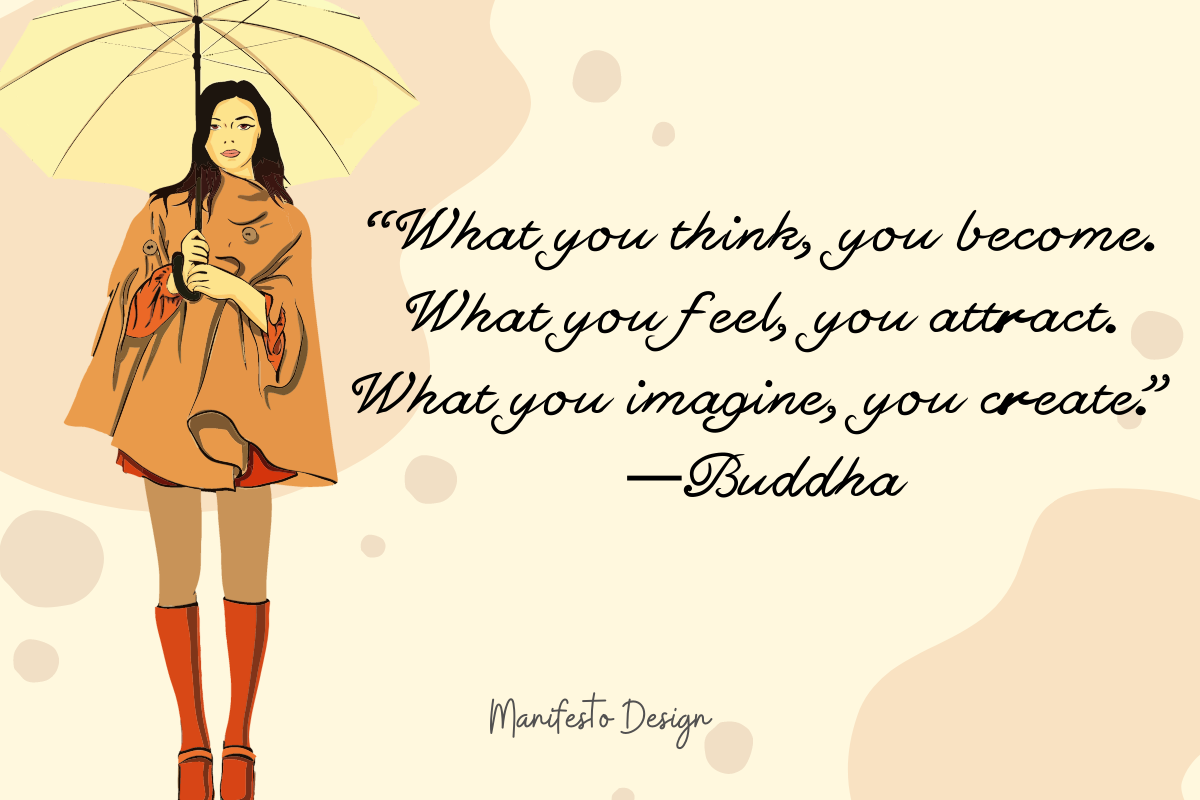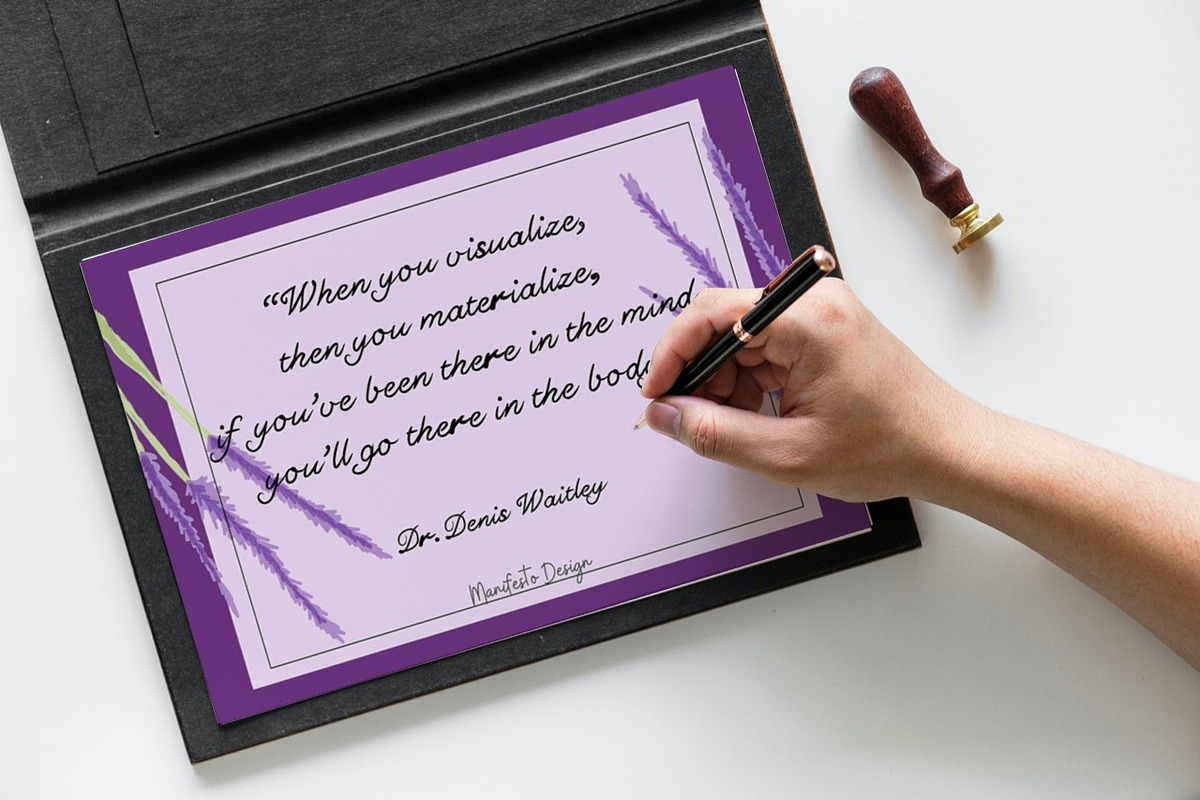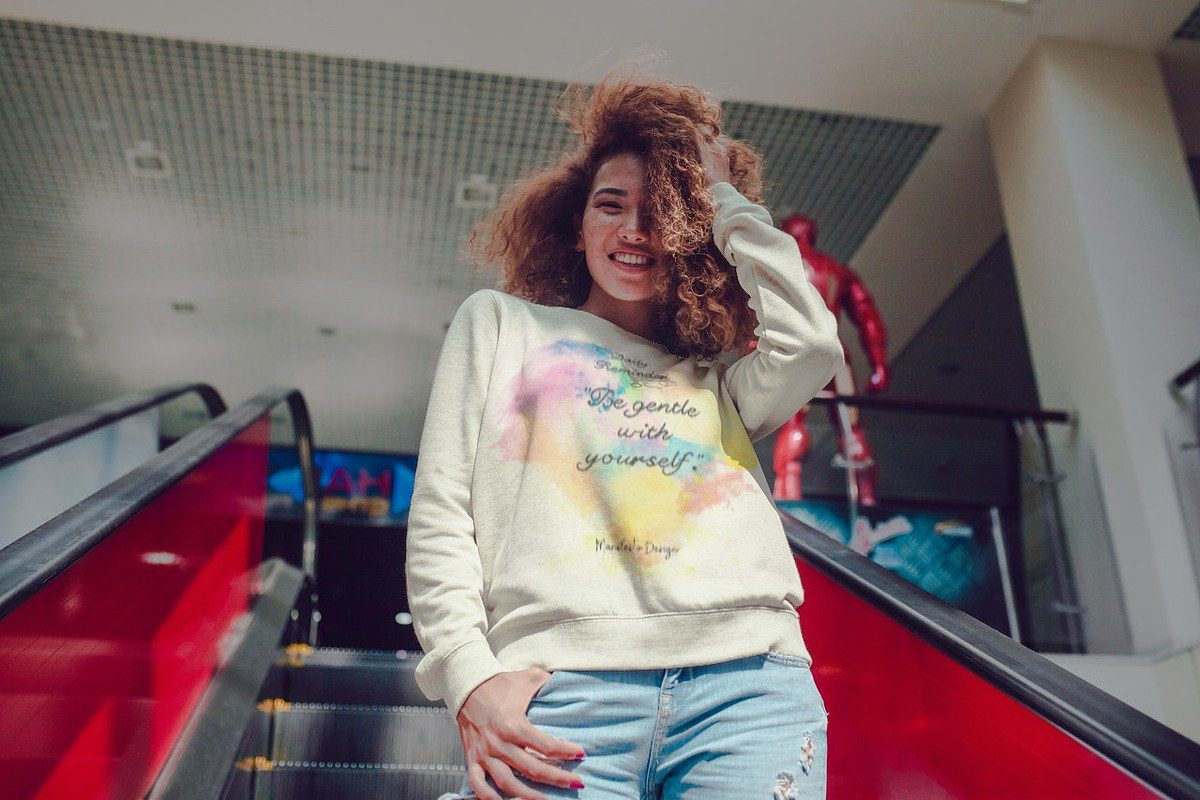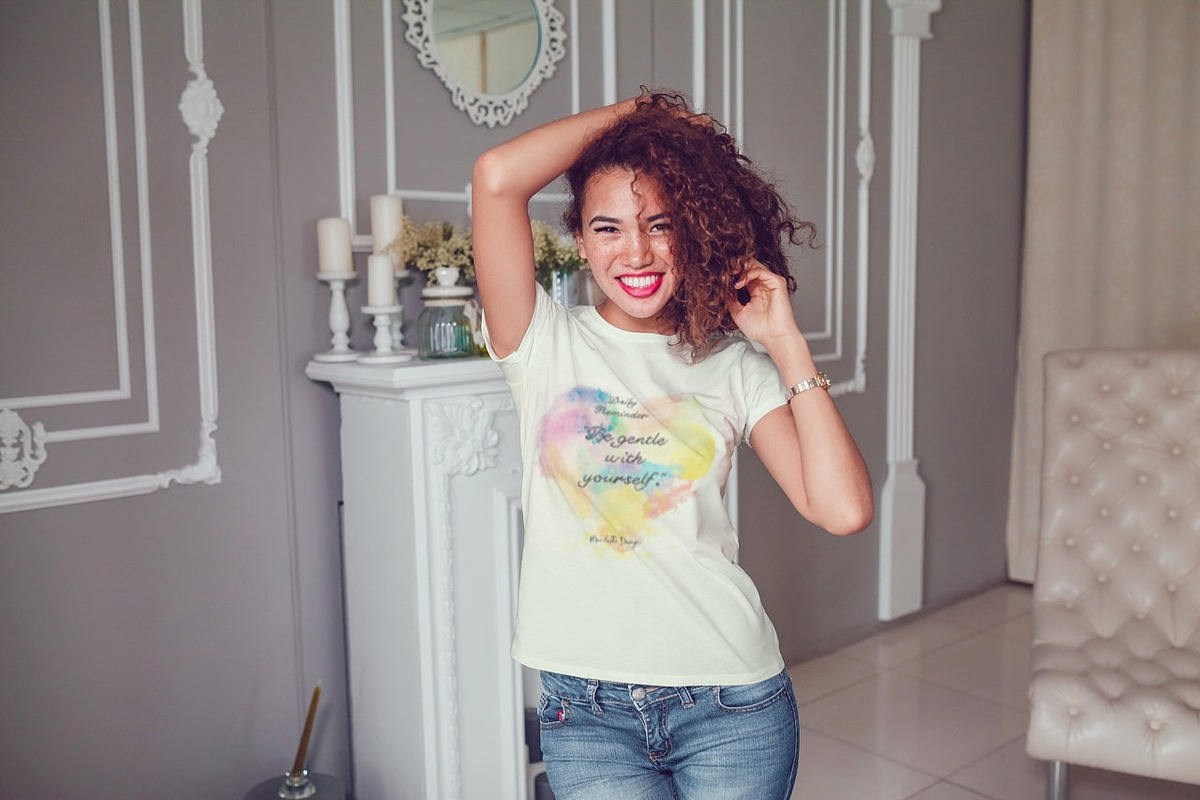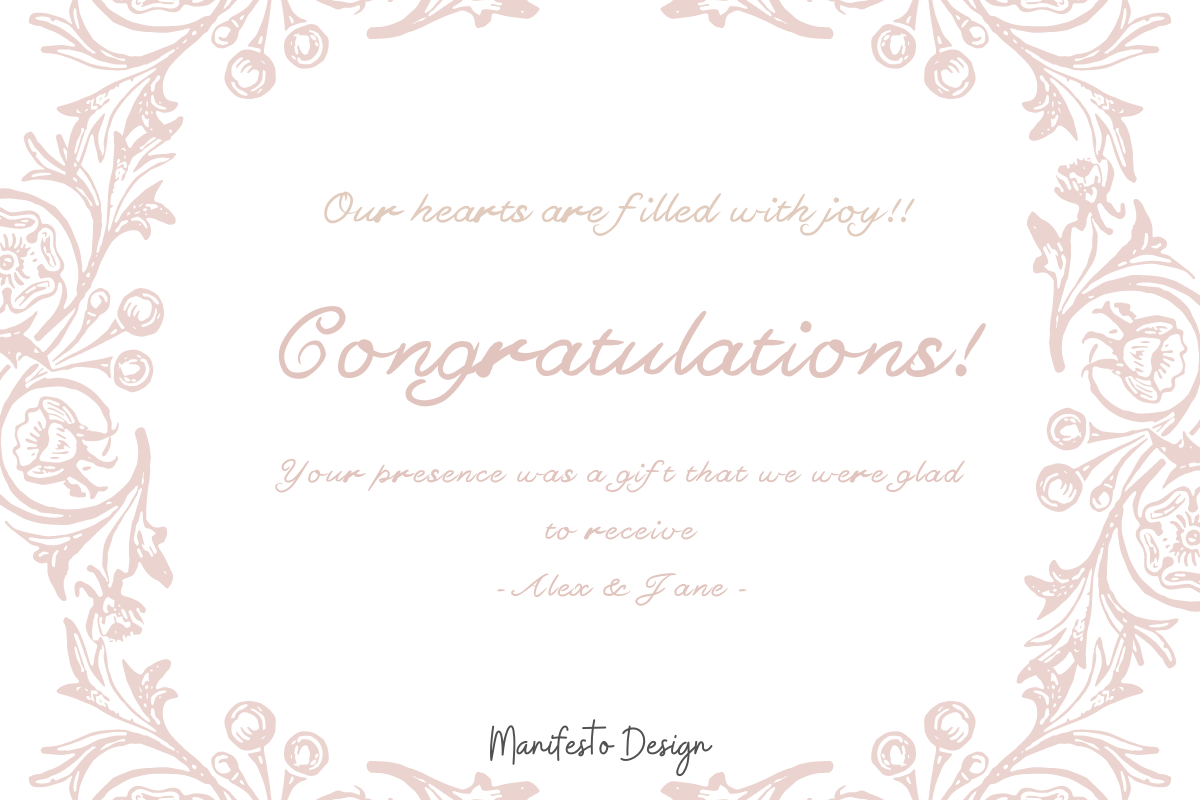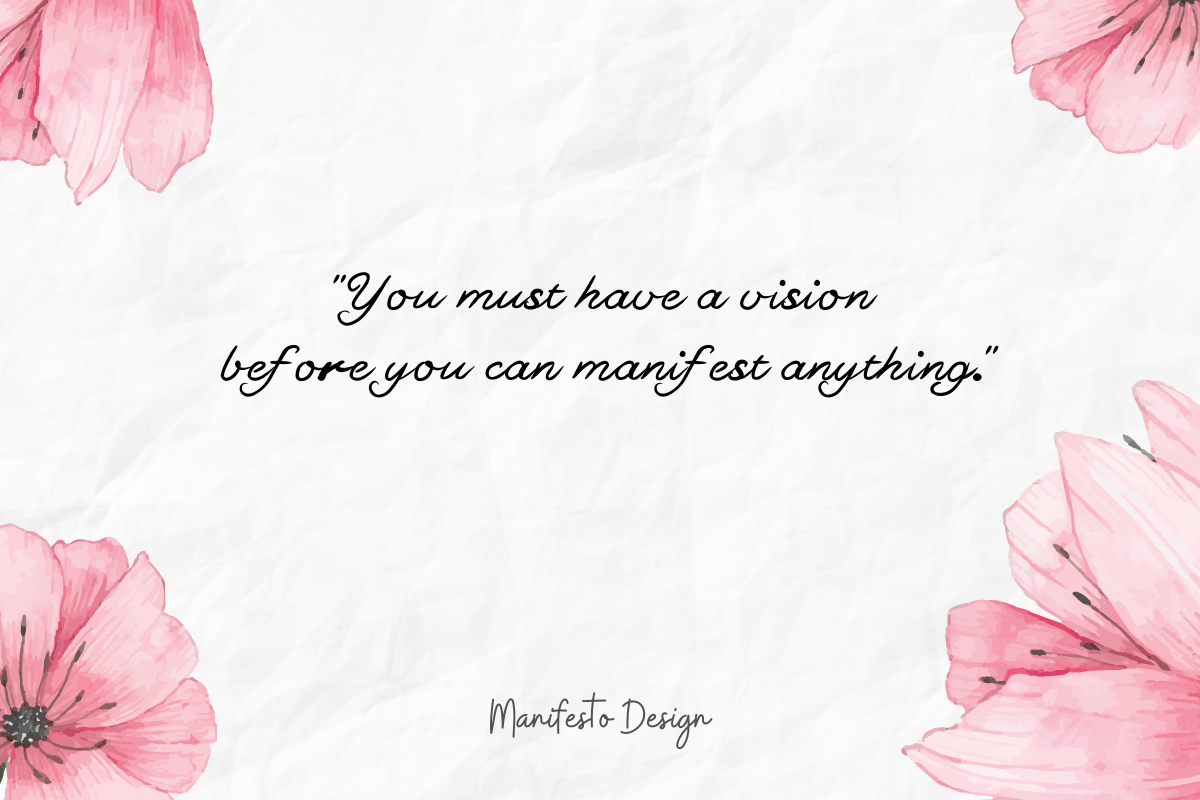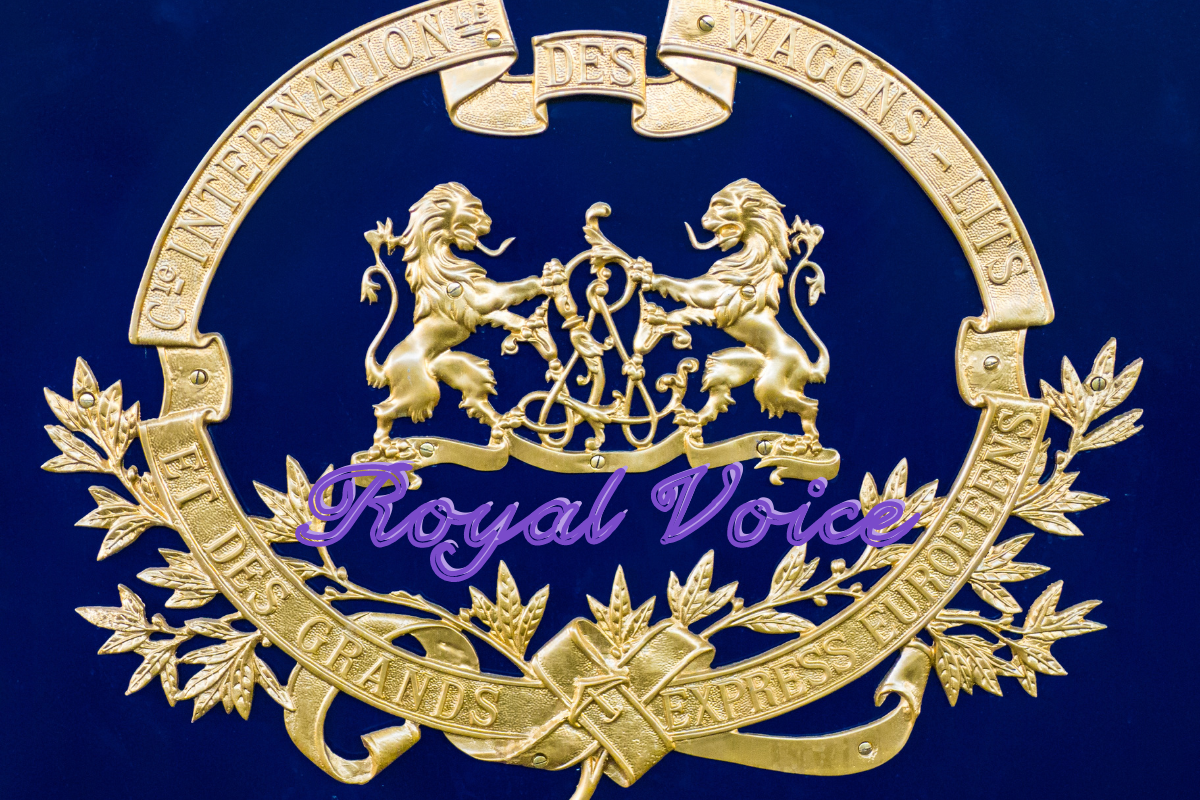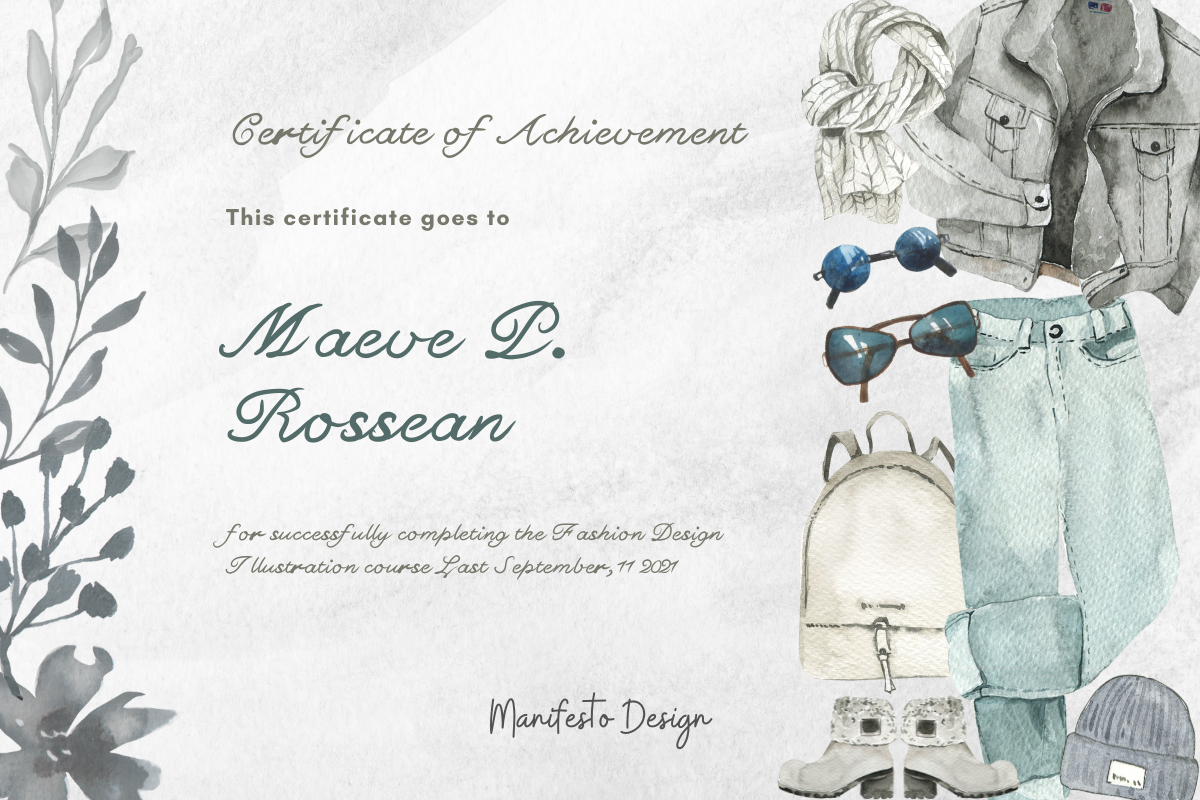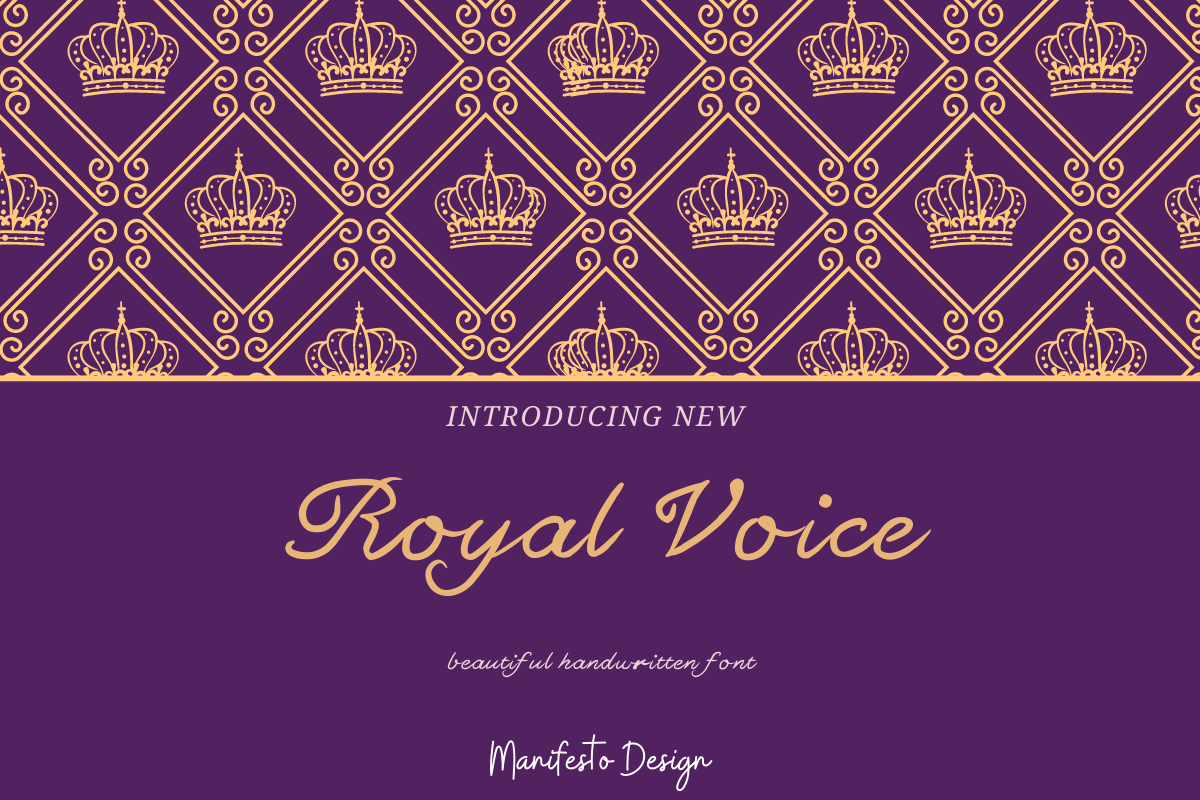
Royal Voice Font
Royal Voice is a beautiful handwritten font.
Royal Voice is a beautiful handwritten font inspired by calligraphy. It's perfect for anyone who wants a more personal and classier look. This is a wonderful handwritten font that offers a wide variety of possibilities. It's called Royal Voice because it has all the elements needed to create a royal, elegant and timeless typography.
The gentle font family from Manifesto Design is a beautiful and friendly handwritten font. It is reminiscent of the classic pen & ink lettering, but with a feel that’s fun, fresh, and expressive. A new handwritten font, Royal Voice Font is perfect for a wide range of needs. This font is easy to read, but also has a unique personality. This typeface has a vintage feel and is completed with whimsical open-ended arms that are completely charming.
This whimsical and casual font will make your designs stand out with its lively colors. Use this font confidently in your work, and you'll love the results.